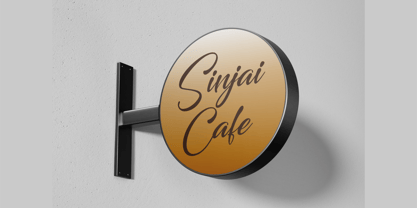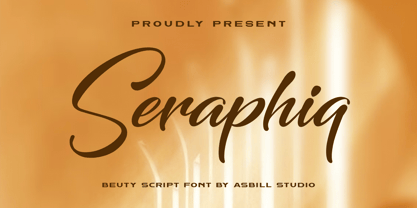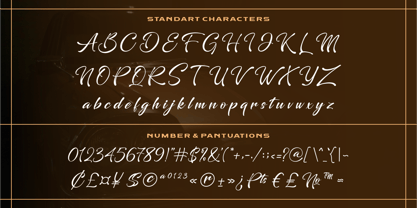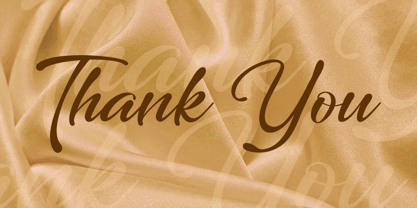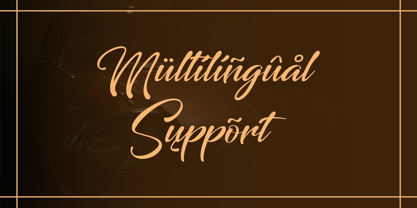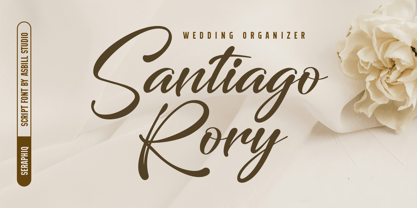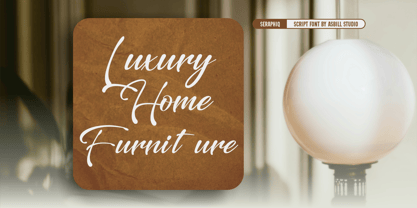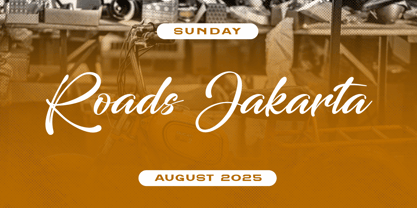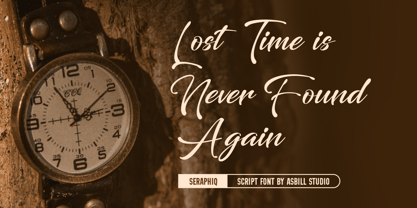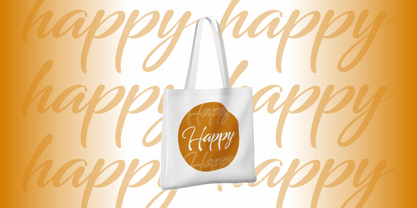
Seraphiq
by Asbill Studio
The Seraphiq Font Family was designed by Ricky Ali and published by Asbill Studio. Seraphiq contains 1 styles. More about this family
Seraphiq is a beautiful script font that blends elegance, style, and charm. With its smooth curves, flowing strokes, and natural handwritten feel, this typeface adds a touch of sophistication to any design project.
Perfect for logos, invitations, branding, quotes, packaging, and social media posts, Seraphiq is designed to make your text look graceful and professional.